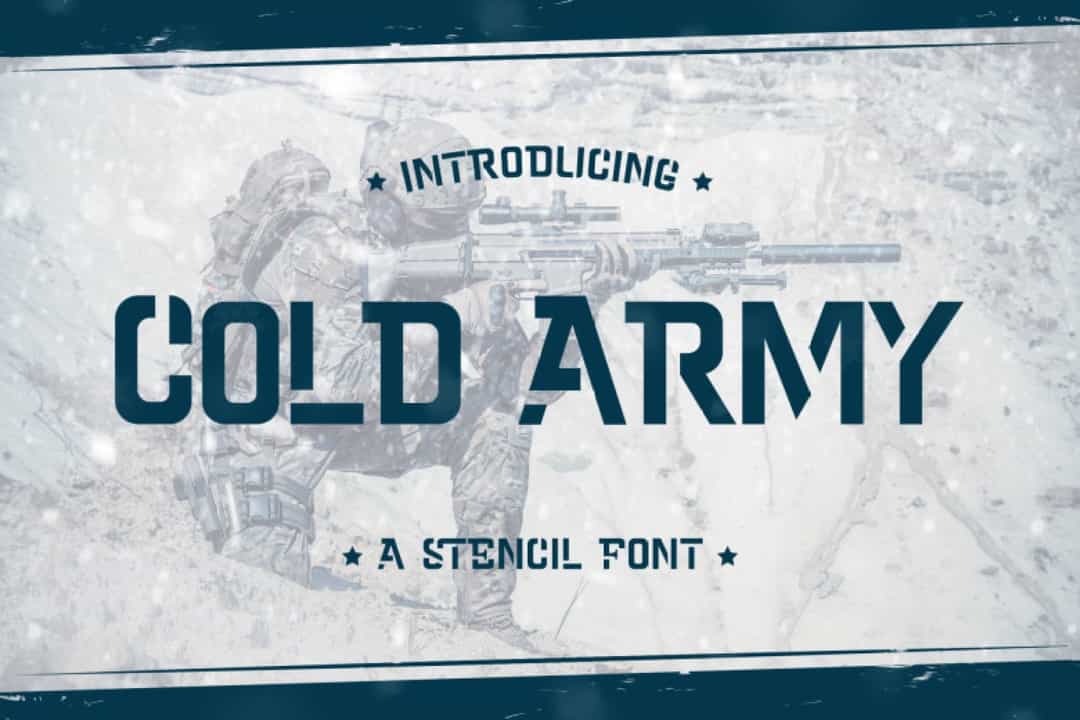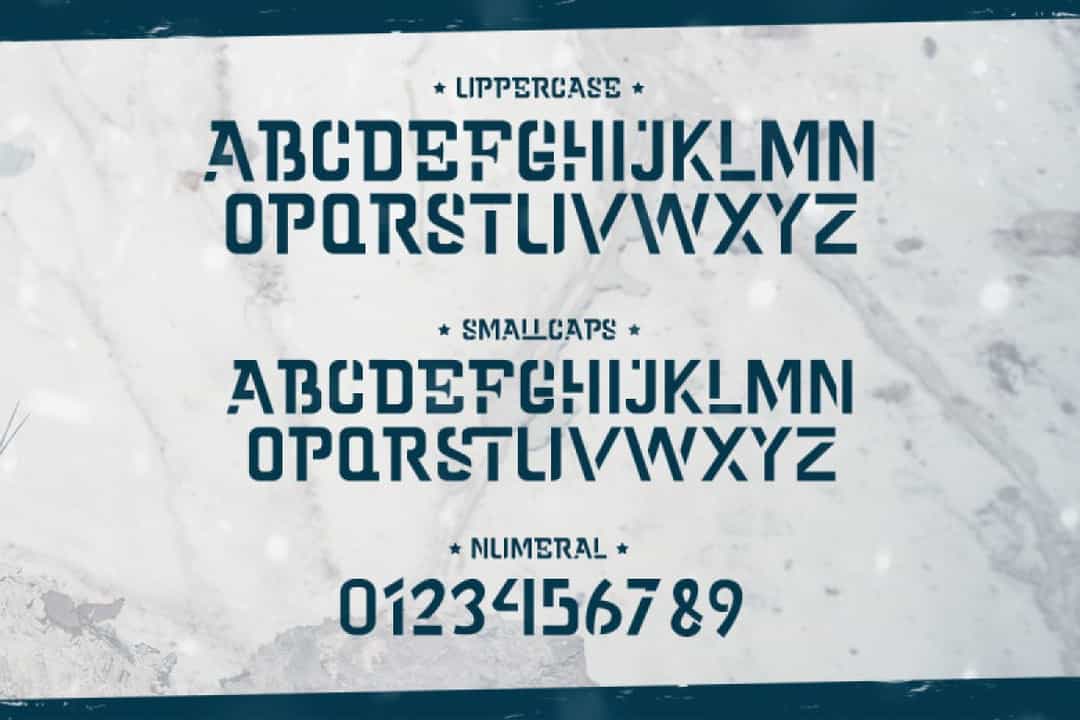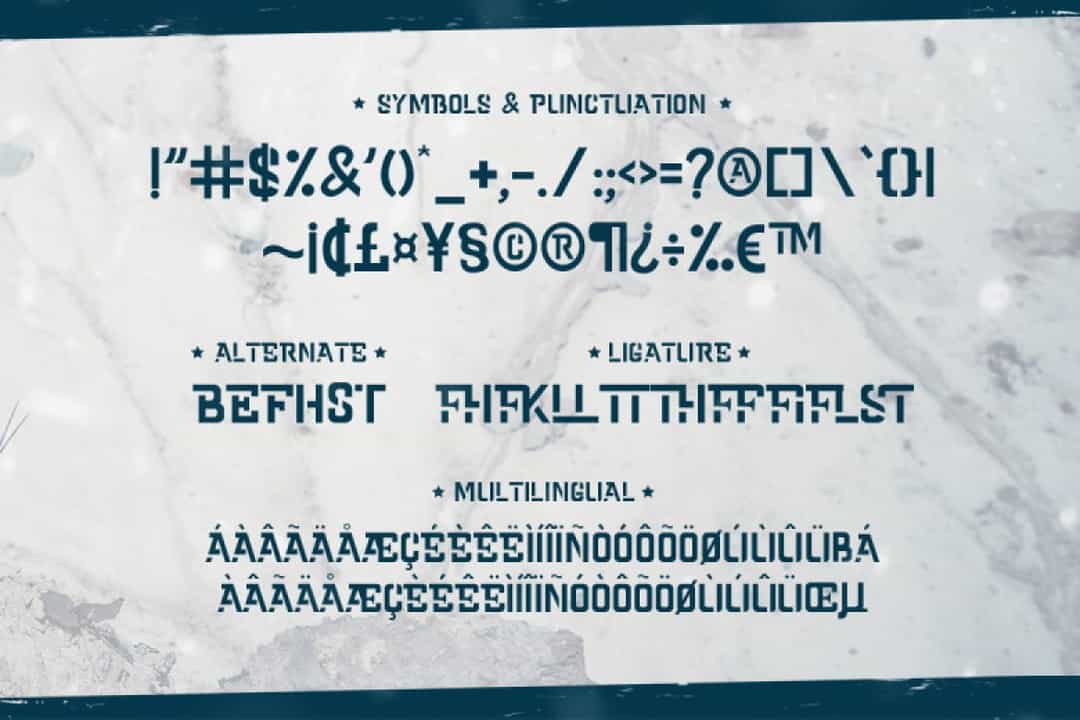
Discover Cold Army Font, part of the Display Stencil Army collection—a versatile and unique font perfect for adding a personal touch to your projects. Download it for free and enjoy crafting designs with style, from invitations to social media posts. This font is available exclusively for personal use, giving you the freedom to create without limits. Unlock your creativity with Cold Army Font today!
Cold Army is an impressive geometric display font. Add its stylish touch to website designs, logos, or anything that requires an impressive appearance for added sophistication and flair.